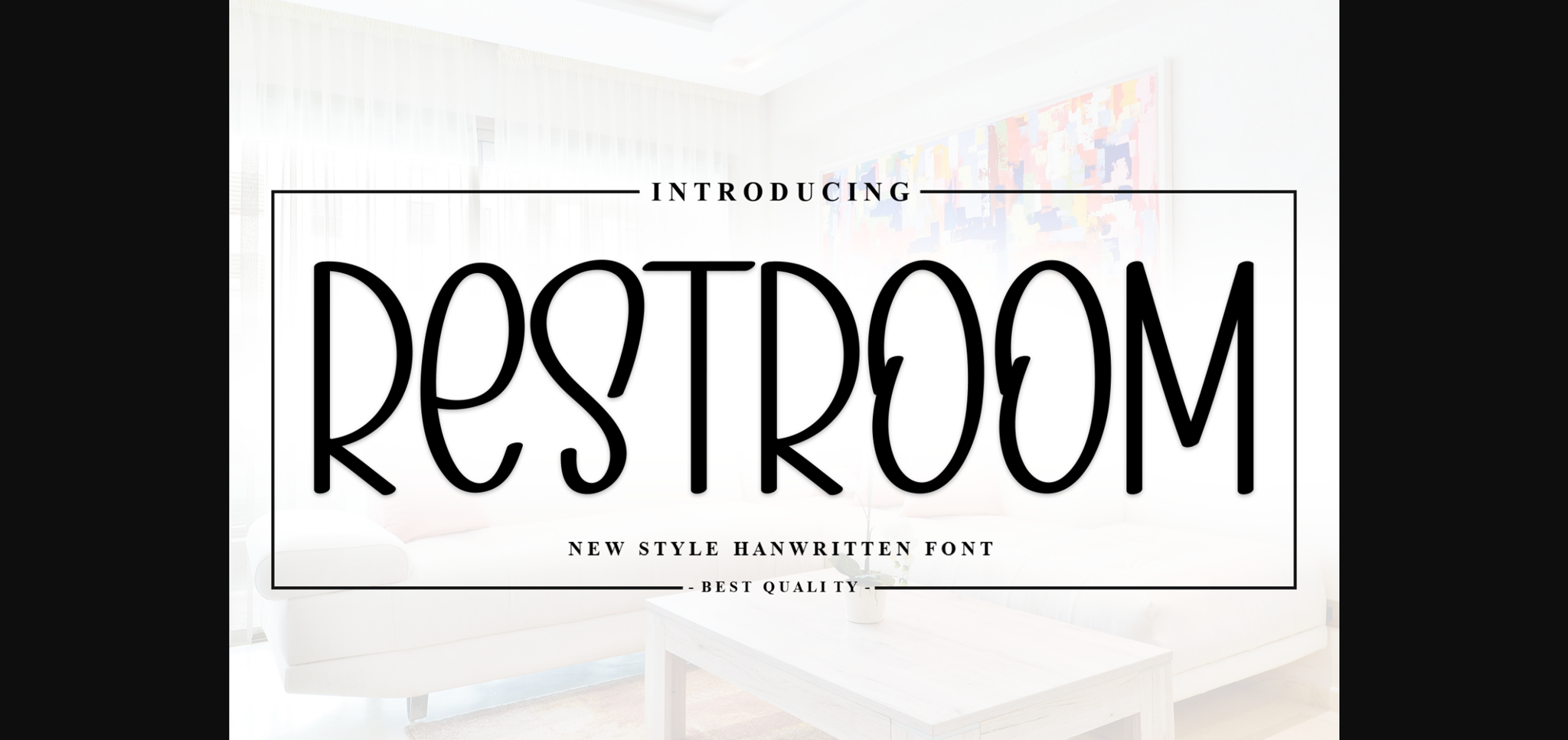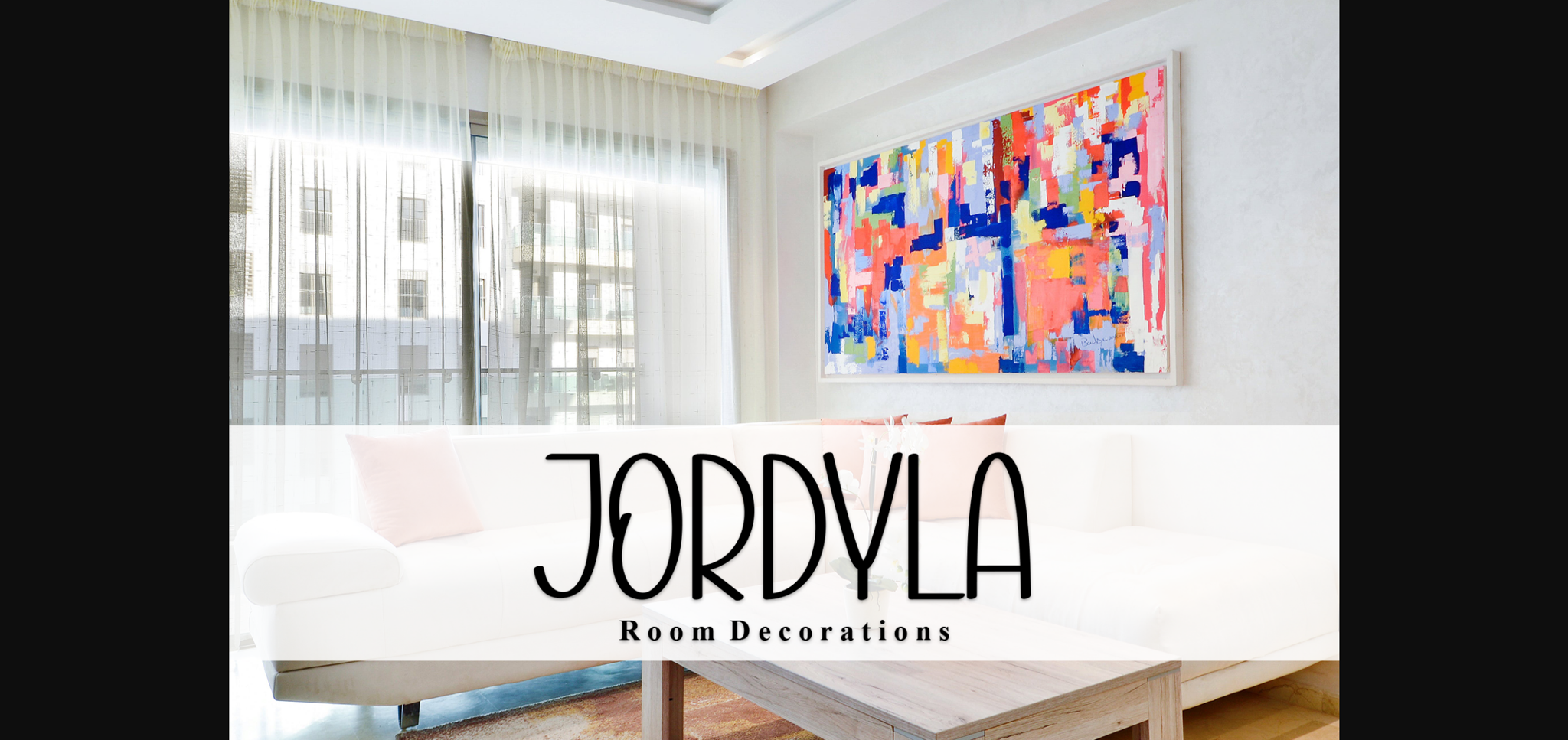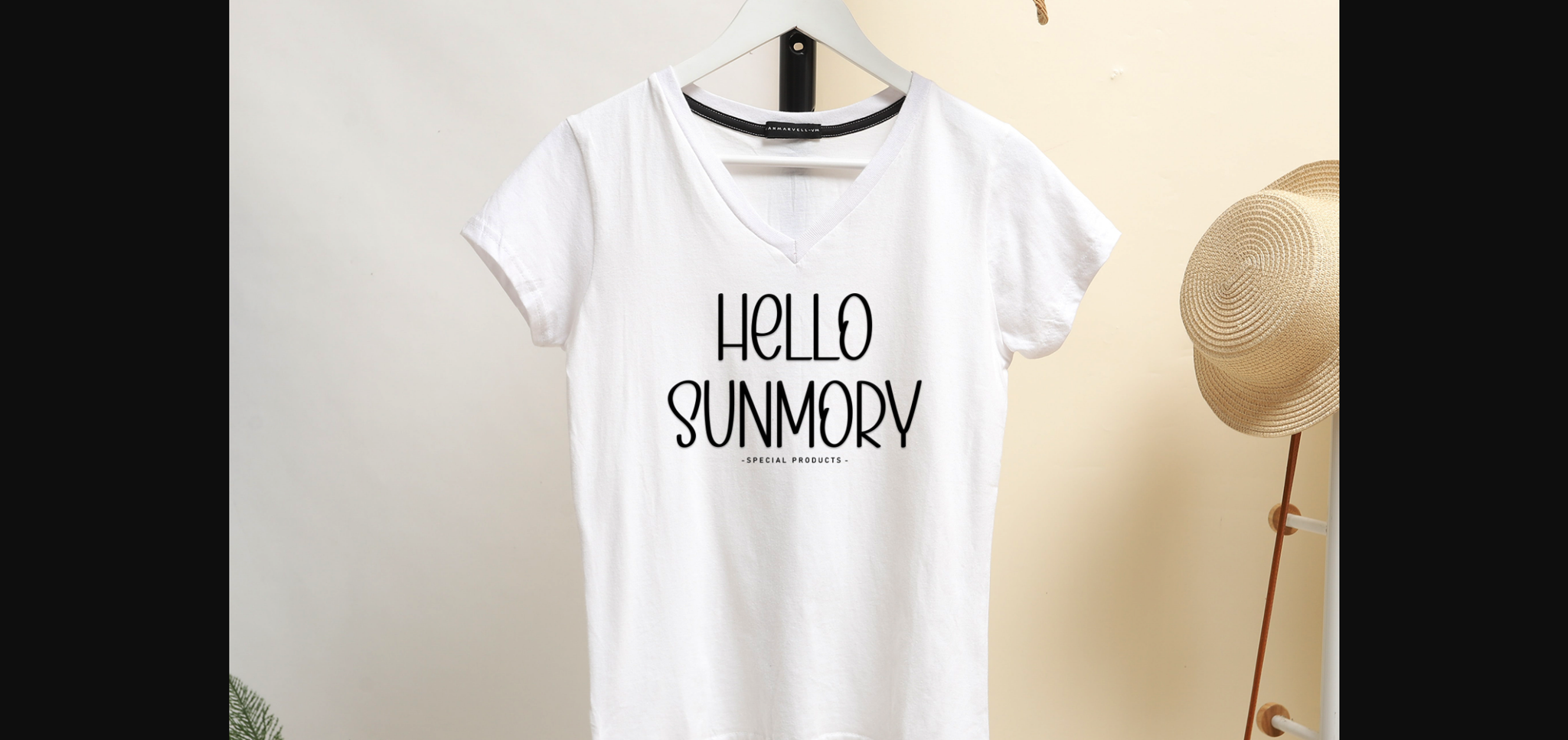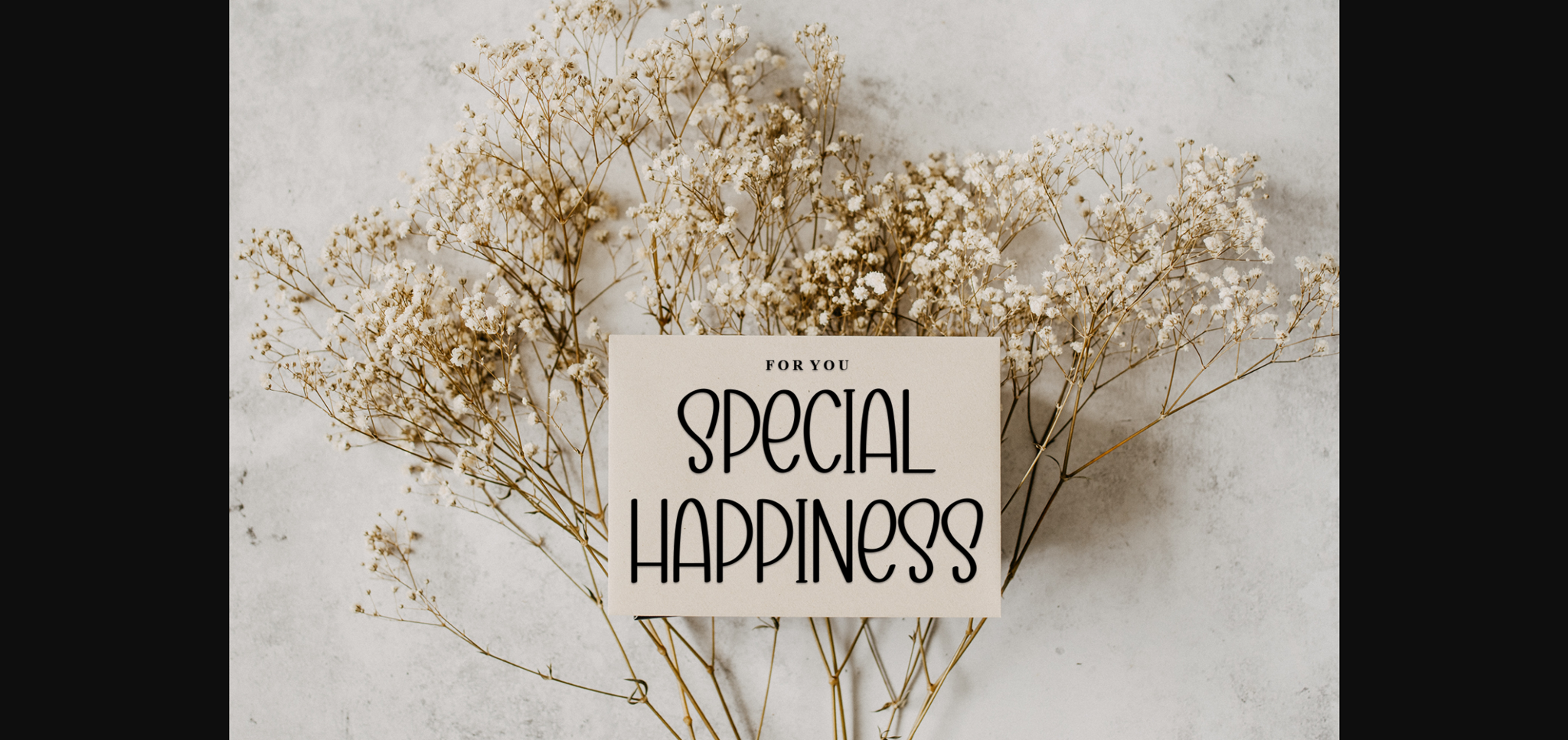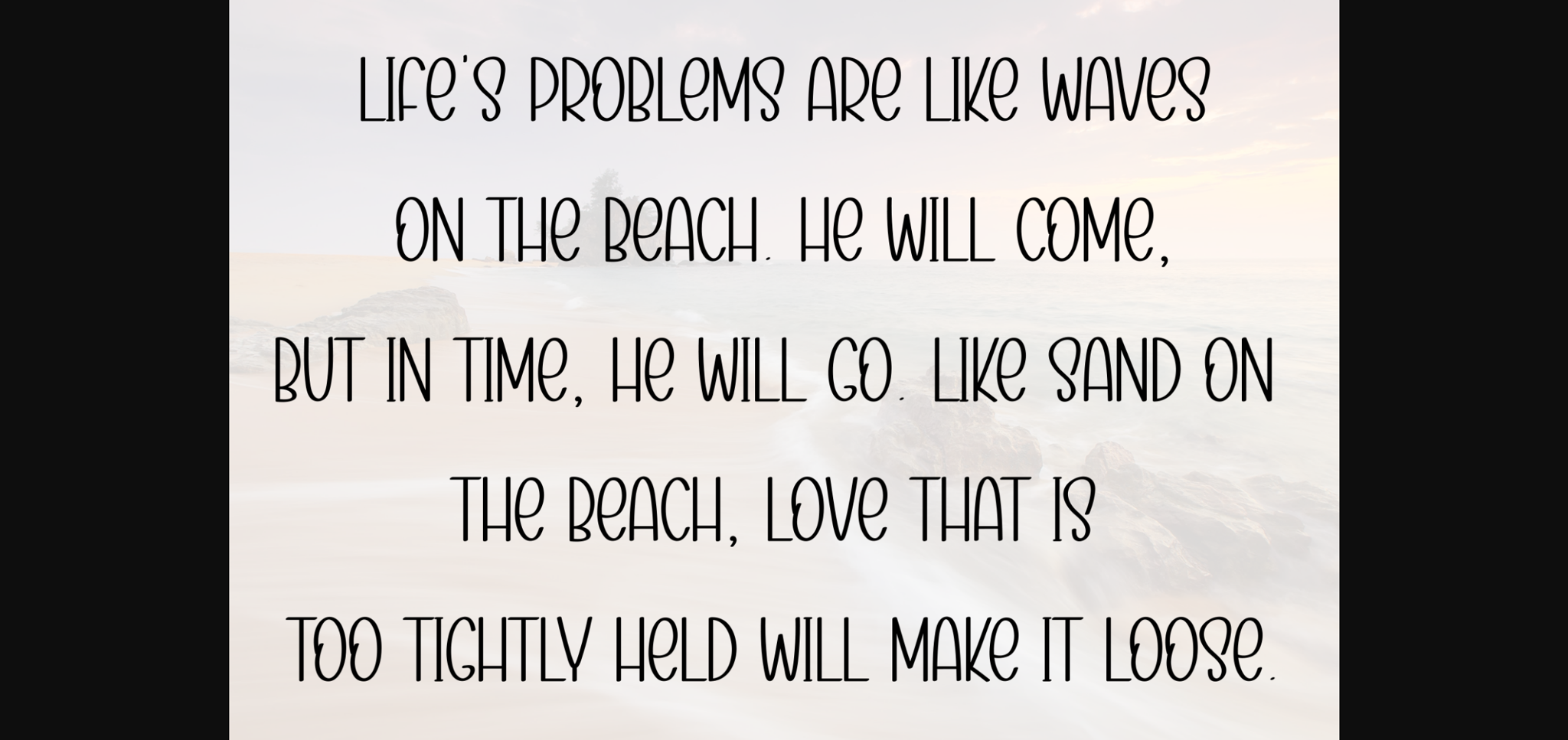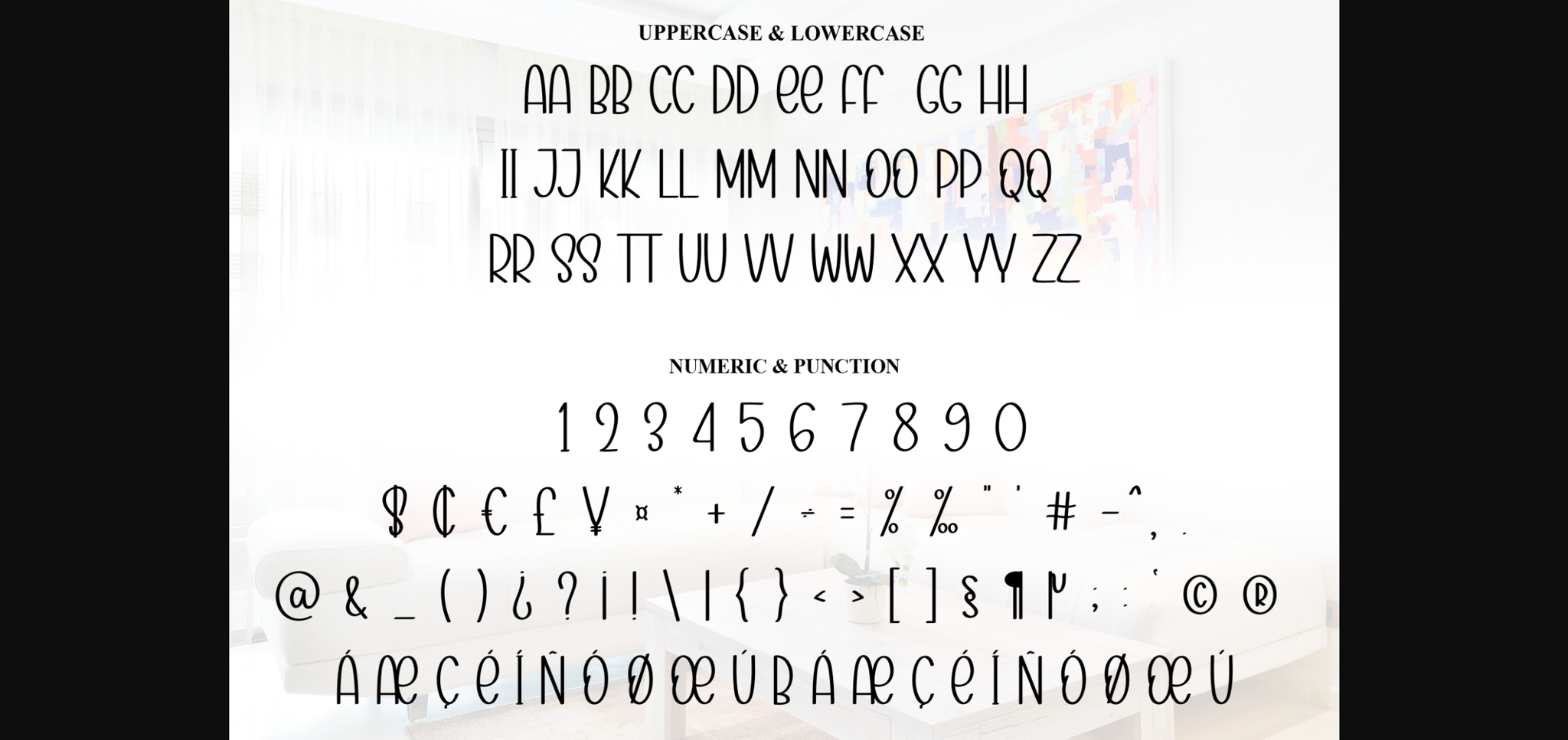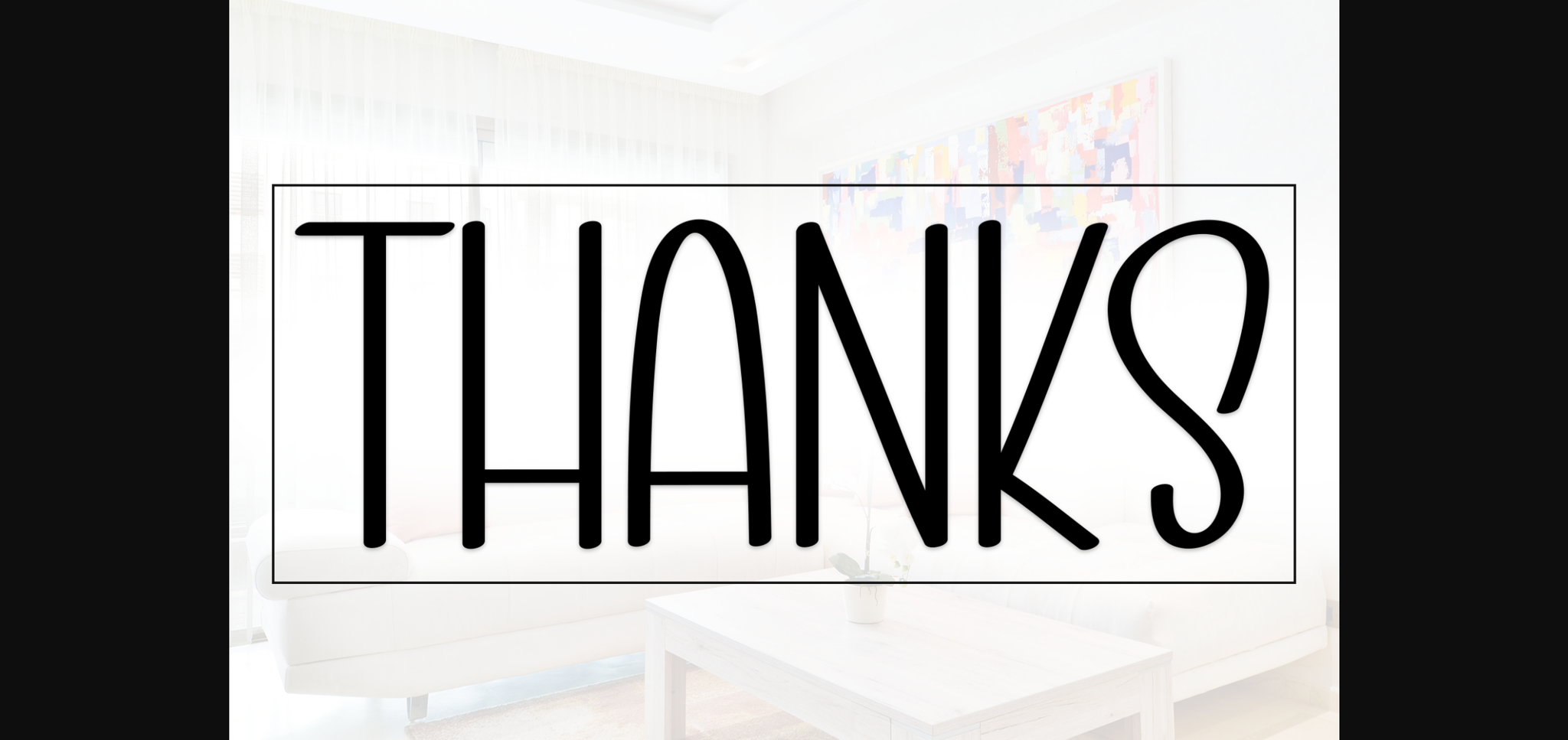
About Restroom Font
Restroom is a neat and beautiful sans-serif font described by an elegant touch, perfect for your favorite projects. Fall in love with its incredibly distinct and timeless style, and use it to create spectacular designs!